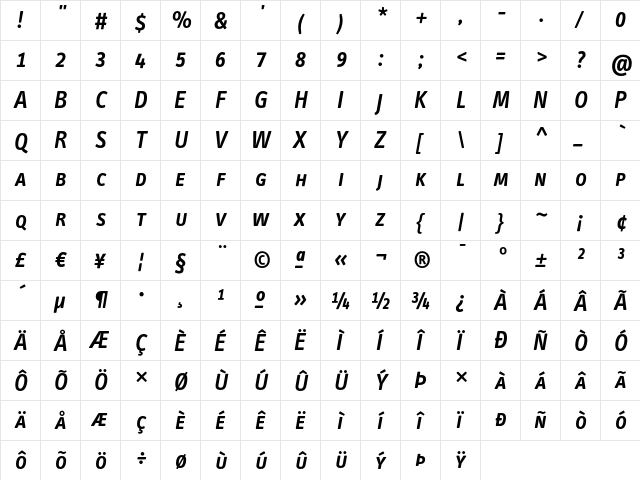
InfoTextSemiboldTf CapsIta
Design Context for InfoTextSemiboldTf Typeface
InfoTextSemiboldTf is a composed and adaptable typeface that performs quietly and consistently across a wide range of design contexts. The heavy weight commands attention and anchors typographic hierarchies.